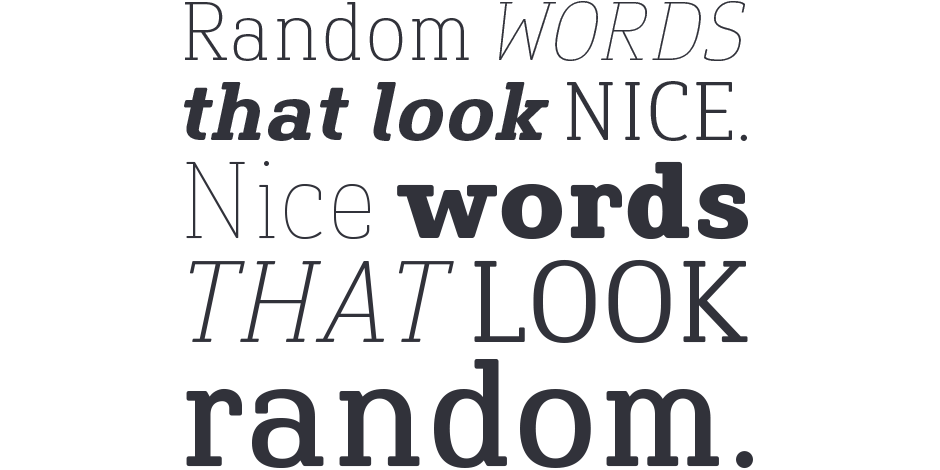
Finador Slab Font Field Guide
Finador Slab is a soft slab-serif family. It has a strong character and can be used for many applications, especially for editorial, branding, packaging and logos. The family supports almost every of your needs. It has all the requirements to become your next favorite workhorse family.
Family
Finador Slab is a soft slab serif family with a total of 16 weights, from thin to heavy and matching italics.
Font Facts
• Finador Slab is based on Finador Sans.
It matches perfectly and can be used easily together.
• The Finador Slab family includes many Open Type Features like small caps, ligatures, fractions, alternates and many more. The Stylistic Sets give you the opportunity to choose the best look and feel for your projects.
Roots
When Finador Sans was released, Julien Fincker couldn’t get rid of the feeling that he wasn’t finished yet. Something was missing, something with more expression, an opponent with the same character. So he took the designs of Finador and started to sketch. Line contrasts, classic antiqua serifs, none of them really matched the original character. But one thing seemed to work well at first glance. A little more line contrast together with thick slab serifs. The thick serifs with rounded corners complemented the overall look of Finador perfectly. So the starting signal for the Finador Slab was given.
Legibility
The lighter and heavier weights are particularly suitable for headlines, while the middle weights can be used for typographic challenges and body text. A large x-height and slight contrast provide a high level of typographic legibility.
How to spot Finador Slab